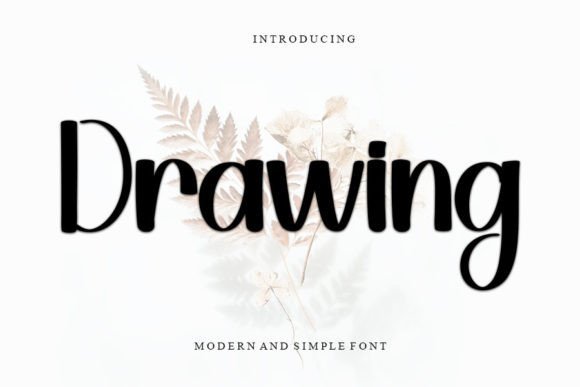
Unleash Your Creativity with the Drawing Font
Do you ever find yourself in a moment of pure creative bliss, surrounded by blank sheets of paper and a sea of possibilities? That’s where the magic happens, and the Drawing Font comes to life. This beautiful handwritten font is designed to add an elegant touch to your projects, making them truly stand out from the crowd.
The Drawing Font is perfect for designers who want to add a personal touch to their work. Its unique and timeless style makes it an ideal choice for various projects, from branding to advertising, and even wedding invitations. With the Drawing Font, you can create spectacular designs that will leave a lasting impression on your audience.
Designer Review: Drawing Font
Overall, I have mixed feelings about the Drawing Font. There are some aspects that I really enjoy, but some limitations that prevent me from fully embracing it.
- The font’s creative and playful style is perfect for artistic and whimsical projects.
- The wide range of weights and styles offers a lot of flexibility for designers to experiment and find the right fit for their designs.
- The font is highly customizable, allowing designers to adjust various settings to suit their needs.
- The font can be overwhelming in large blocks of text, making it difficult to read.
- The lack of robust language support is a major drawback, limiting its use for global or multilingual projects.
- The font’s performance can be slow on older systems or in resource-constrained environments.
Overall, I would recommend the Drawing Font for projects that require a playful and artistic touch, but not for projects that require clear and concise communication. With some tweaks to address its limitations, I believe this font has the potential to be a game-changer in the design world.
While Drawing Fonts are designed to be visually striking, they are not always suitable for body text. The irregularities and custom letterforms that make Drawing Fonts so expressive can also make them difficult to read at small font sizes. However, many Drawing Fonts are designed to be used at larger font sizes, such as titles, headings, and captions, where their unique character can add visual interest and personality to your design. If you need to use a Drawing Font for body text, it’s essential to choose a font with clear, legible letterforms and a suitable font size